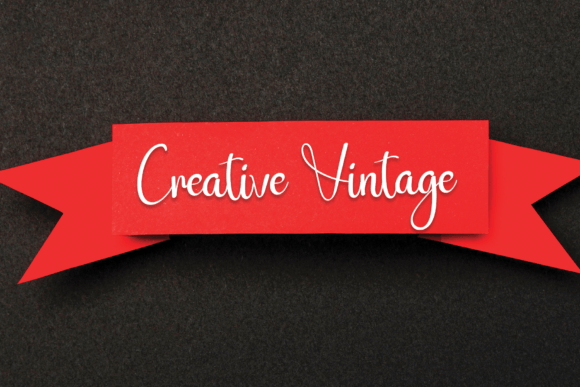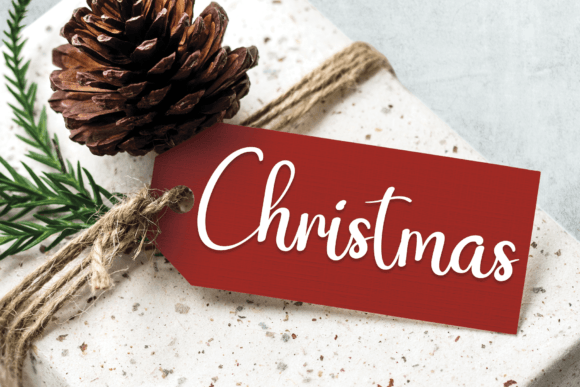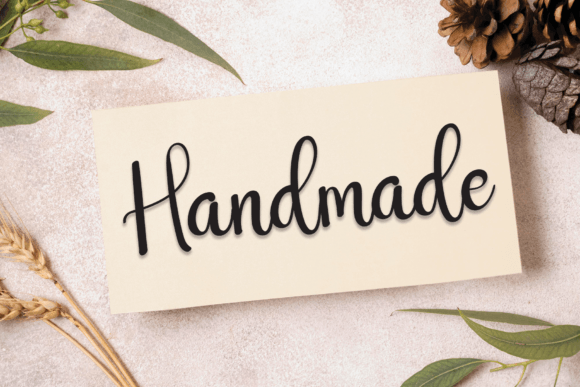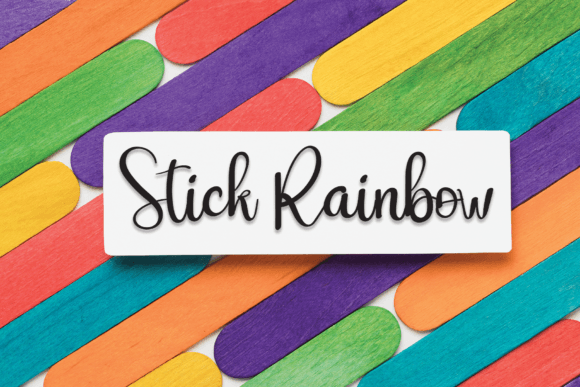
The Sweet Charm of Butterfry Font: A Designer’s Delight
I’ll never forget the time I was working on a wedding invitation project, and my client asked for a font that was “sweet, romantic, and playful.” I scoured the internet, tried out dozens of fonts, but nothing seemed quite right. That was until I stumbled upon Butterfry Font. ✨ This beautiful, handwritten font has been a game-changer for me, and I’m excited to share its charm with you.
An Honest Review of Butterfry Font
- ✨ Sweet and smooth handwritten style: Butterfry Font has a unique, cursive feel that’s both elegant and playful.
- ✅ Perfect for romantic designs: This font is ideal for wedding invitations, love letters, or any design that needs a personal touch.
- 🎉 Cute and playful: The font’s whimsical feel makes it perfect for projects that require a touch of whimsy.
While Butterfry Font is an amazing font, there are a few things to keep in mind: 🤔
- ⚠️ Limited character set: Like many handwritten fonts, Butterfry Font may not have an extensive character set, which can limit its use in certain projects.
- ⚠️ May not be suitable for body text: Due to its cursive nature, Butterfry Font may not be the best choice for long blocks of text.
The Designer Inspiration Behind Butterfry Font
Butterfry Font was designed with love and care by a talented font designer who’s passionate about creating beautiful, handwritten fonts. The designer’s inspiration came from a mix of traditional calligraphy and modern digital design. The result is a font that’s both elegant and playful, perfect for adding a personal touch to your designs.
Q: What is Butterfry Font best used for?
A: Butterfry Font is perfect for romantic designs, such as wedding invitations, love letters, and cards.
Q: Is Butterfry Font suitable for body text?
A: While Butterfry Font is a beautiful font, it may not be the best choice for long blocks of text due to its cursive nature.